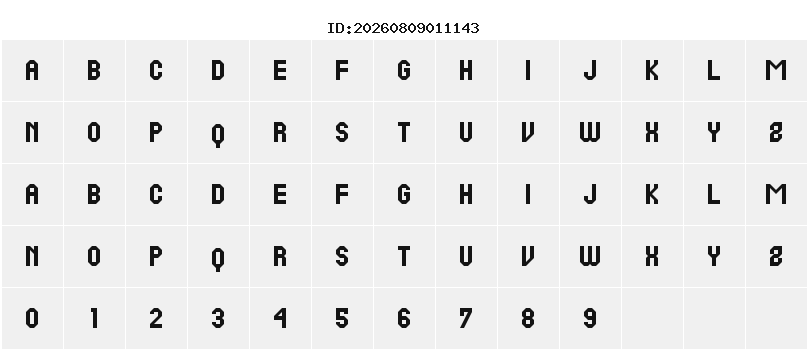
• Font Name: Pine RC
• Designer: rilencavy
• Description: “Pine RC” was built with FontStruct
About Pine RC.ttf
Pine RC.ttf is a modern, elegant sans-serif font designed for ultimate readability and visual harmony. Perfect for branding, headlines, web design, and print materials.